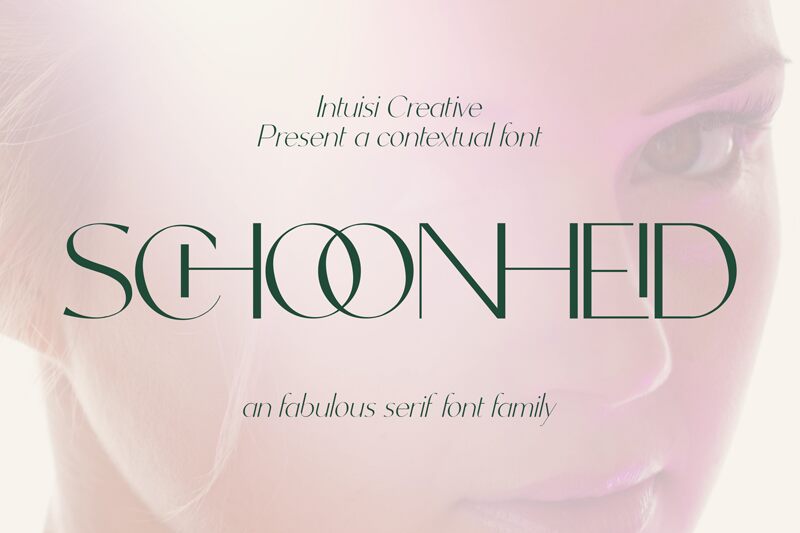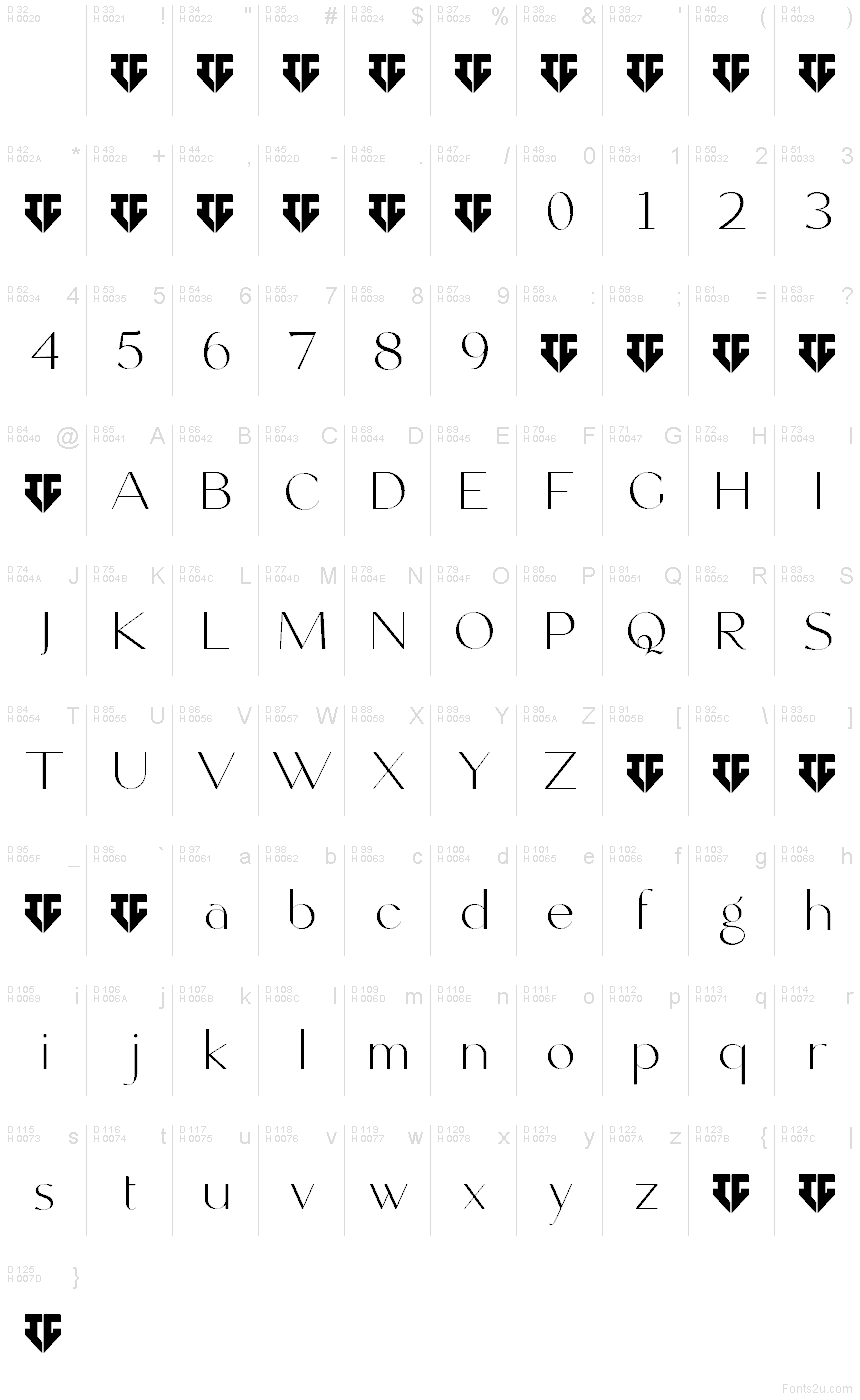
Schoonheid Regular
Schoonheid font by Intuisi Creative is a free sans serif typeface that thrives on contrast between airy white space and razor-fine strokes. Its letters feel sculpted—sleek curves meet precise, almost chiseled cuts—creating a cool, editorial poise without shouting. The rhythm is even and the spacing feels naturally breathable, so words glide across the page with a clean, modern sheen.
Using Schoonheid, headlines gain a refined hush that still turns heads—great for beauty branding, fashion lookbooks, boutique packaging, posters, magazine mastheads, and invitations. Set it large to let those slender strokes gleam; a touch of extra tracking keeps things luxurious. For body copy, pair this free font with a quiet text serif to anchor the elegance without stealing the spotlight.